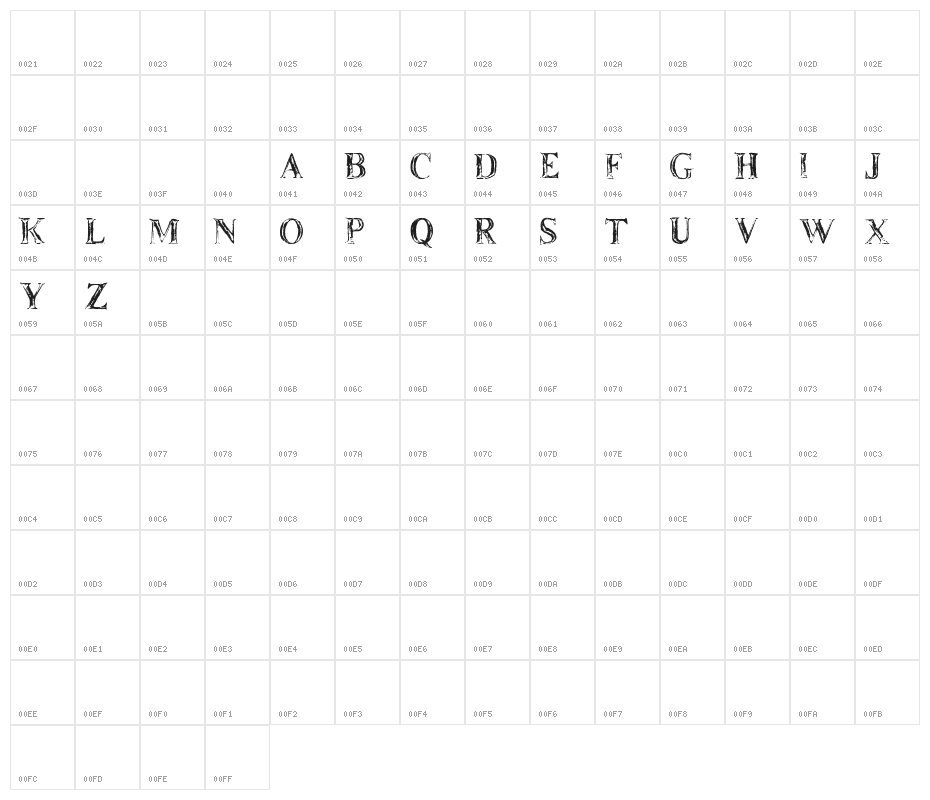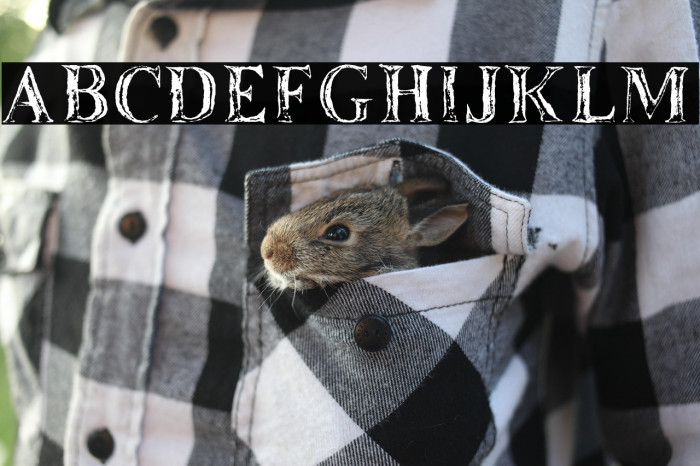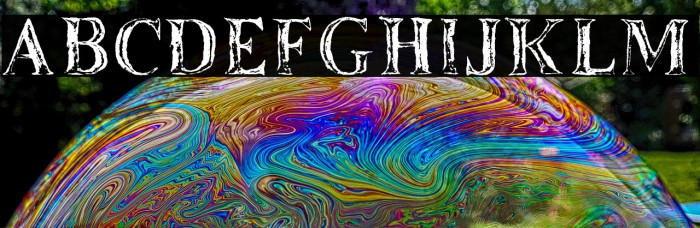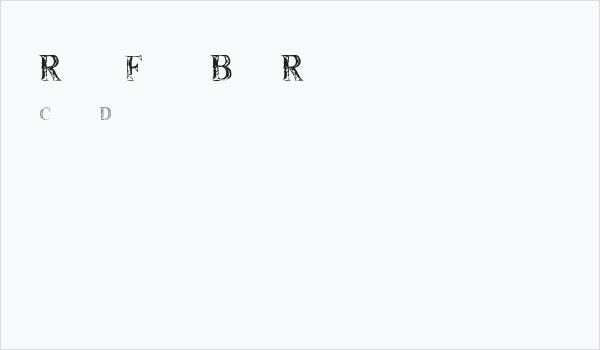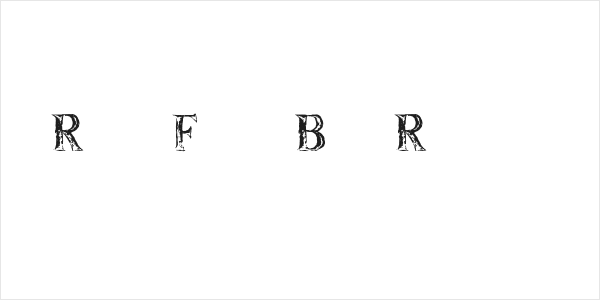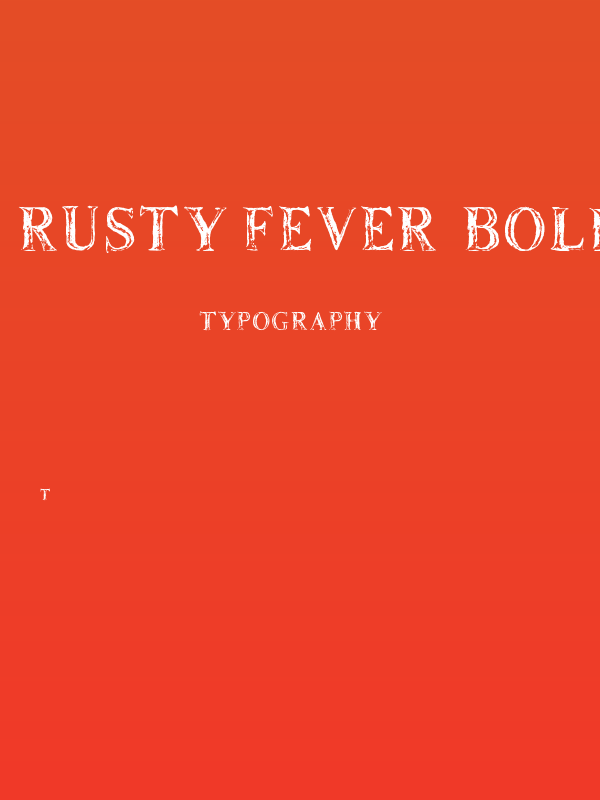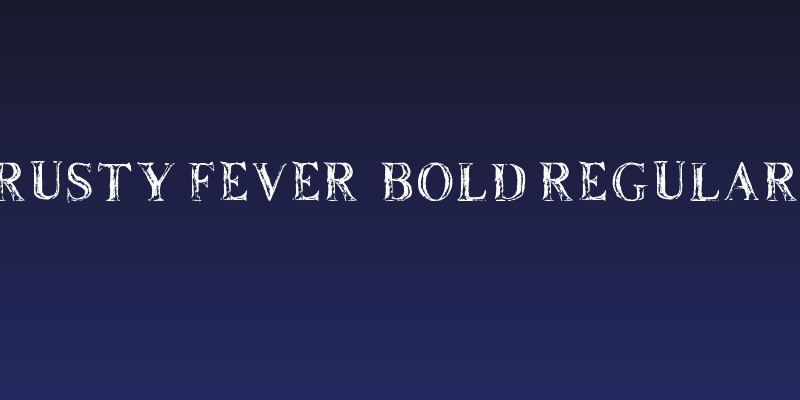
Rusty Fever_Bold Regular Font
Rusty Fever_Bold Regular Description
This font exhibits a rugged, distressed appearance, reminiscent of weathered metal or aged wood. Each character is uniquely textured, giving it a hand-crafted, artisanal feel. The bold strokes and irregular edges create a sense of movement and energy, making it stand out in any design. The uppercase letters are particularly striking, with their bold presence and intricate detailing. This font is perfect for projects that require a rustic or vintage aesthetic, adding character and depth to any text.
Overall StyleVintage
Proposed ProjectsIdeal for branding, posters, album covers, and any design needing a vintage or rustic touch.